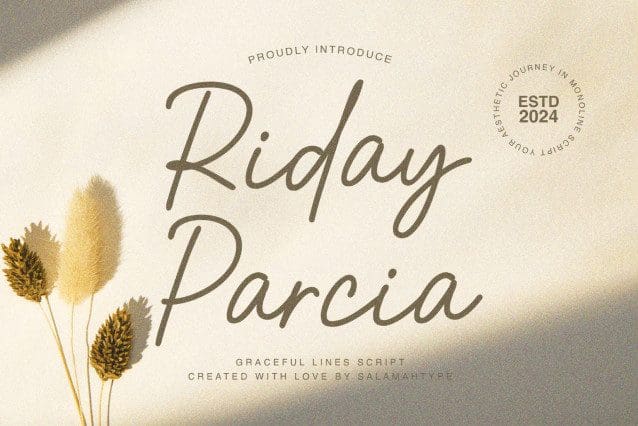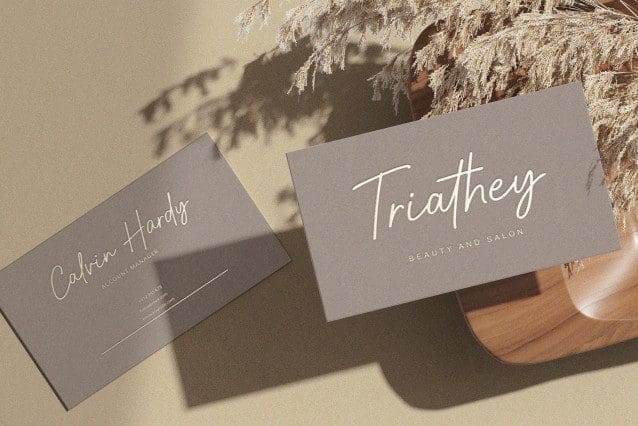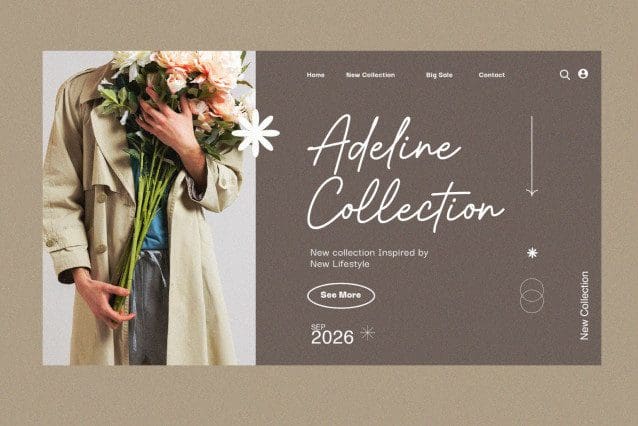
Riday Parcia Font
Riday Parcia Font a beautiful monoline script font suitable for design projects such as logos, social media, advertising, product packaging, product design, labels, photography, watermarks, invitations, stationery and more.